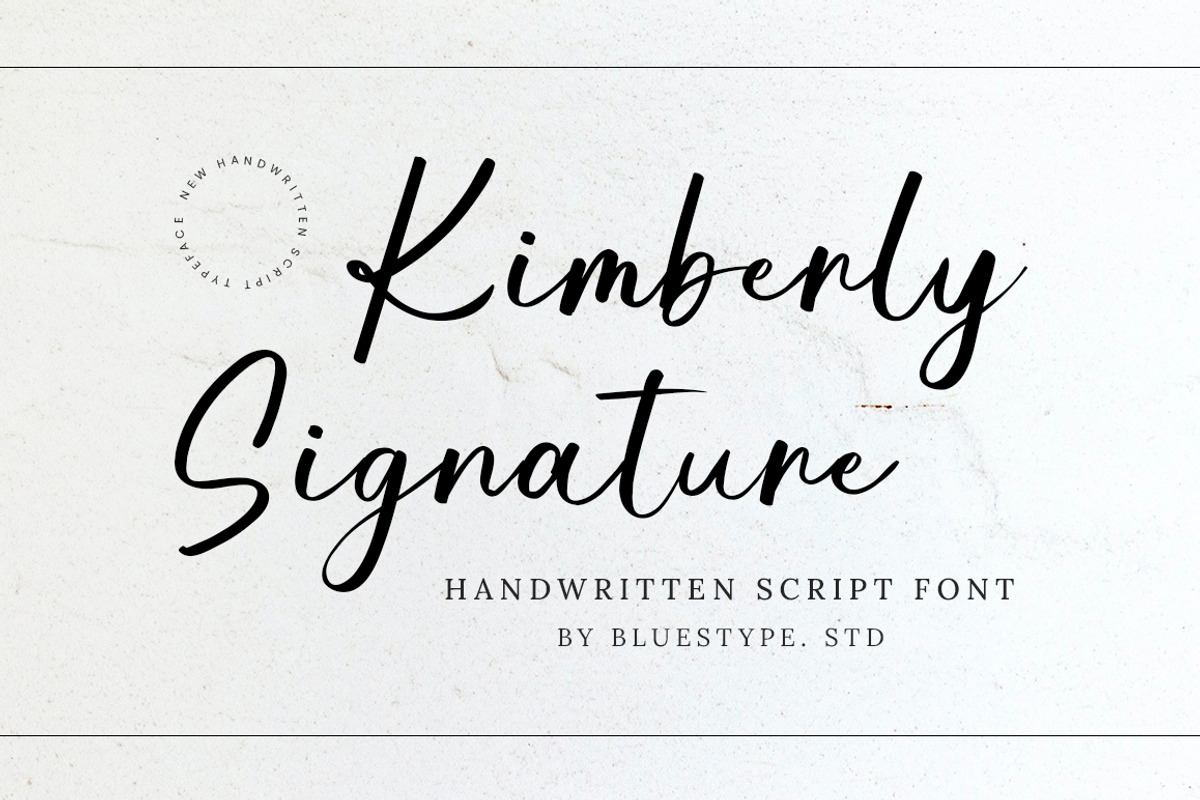
Kimberly Signature - Modern Font Free Download is a sophisticated and elegant handwritten typeface designed to mimic the beauty of natural handwriting. Perfect for logos, signature-style branding, wedding designs, social media posts, and luxury packaging, this font adds a personal and refined touch to any creative project.
Its fluid strokes, smooth curves, and authentic handwritten vibe make it both stylish and highly legible. Kimberly Signature comes with ligatures, stylistic alternates, and full multilingual support, and is fully compatible with Mac and Windows systems.